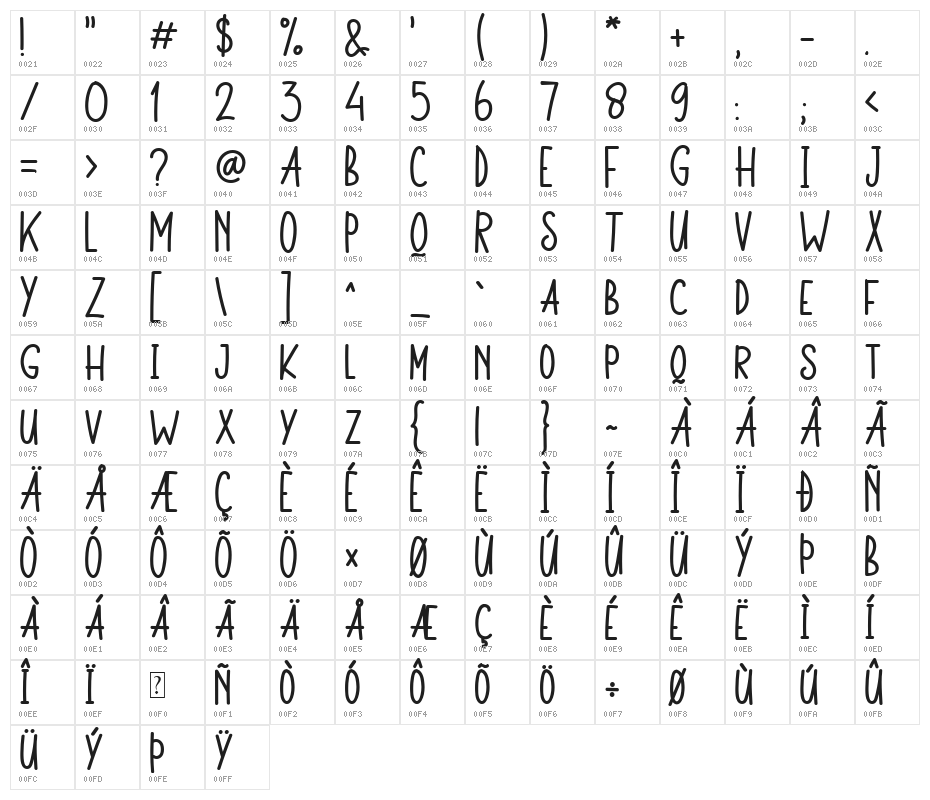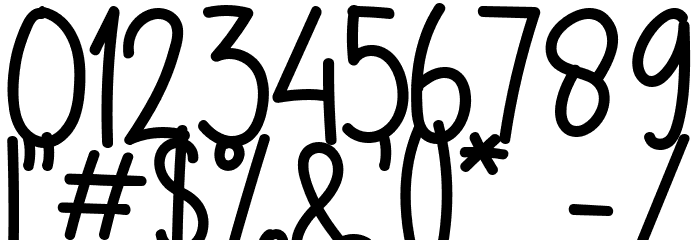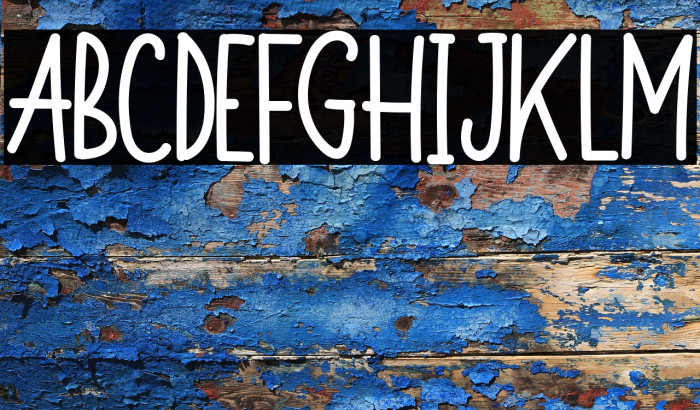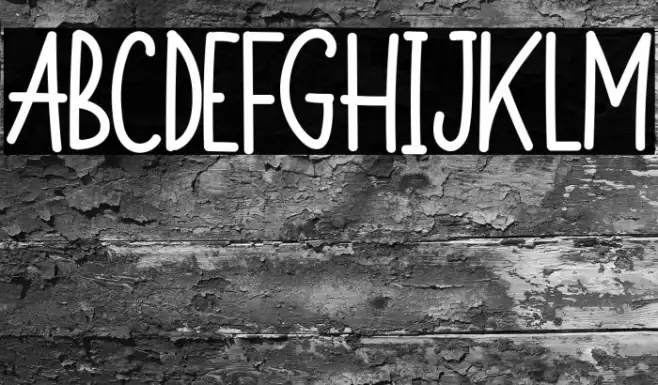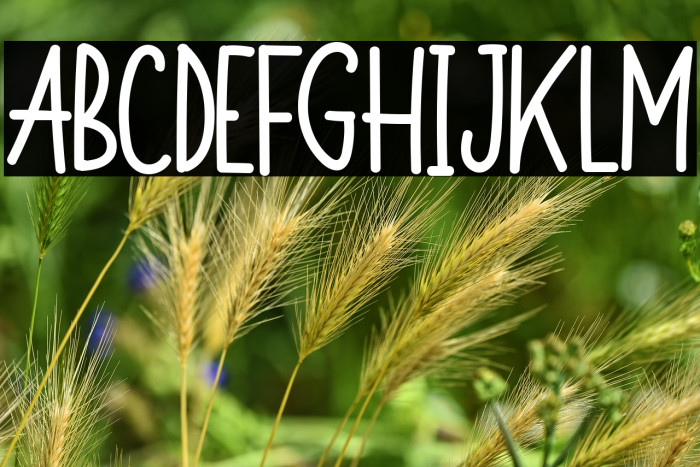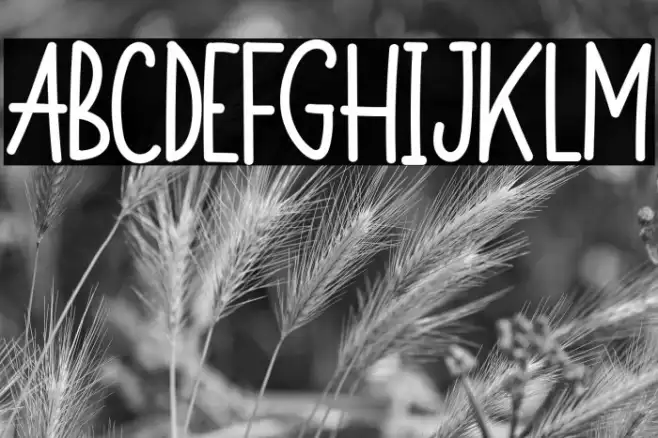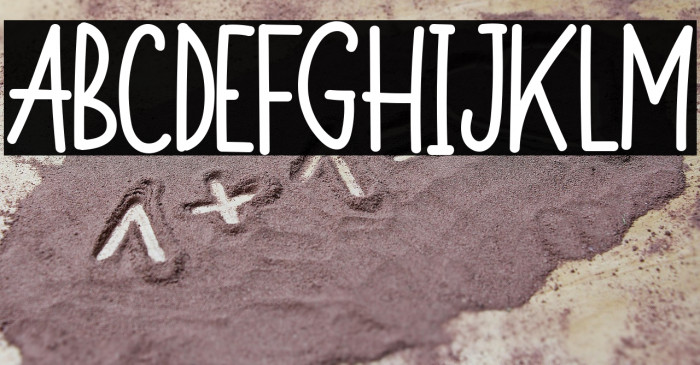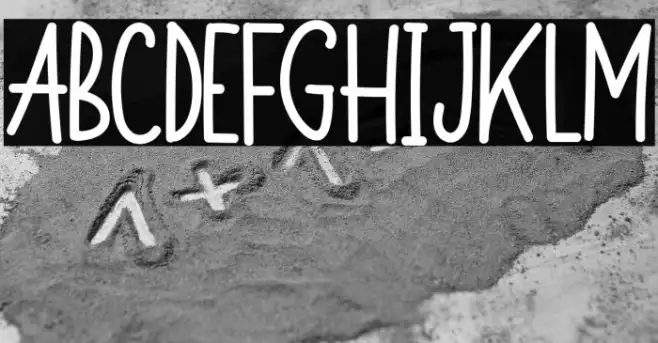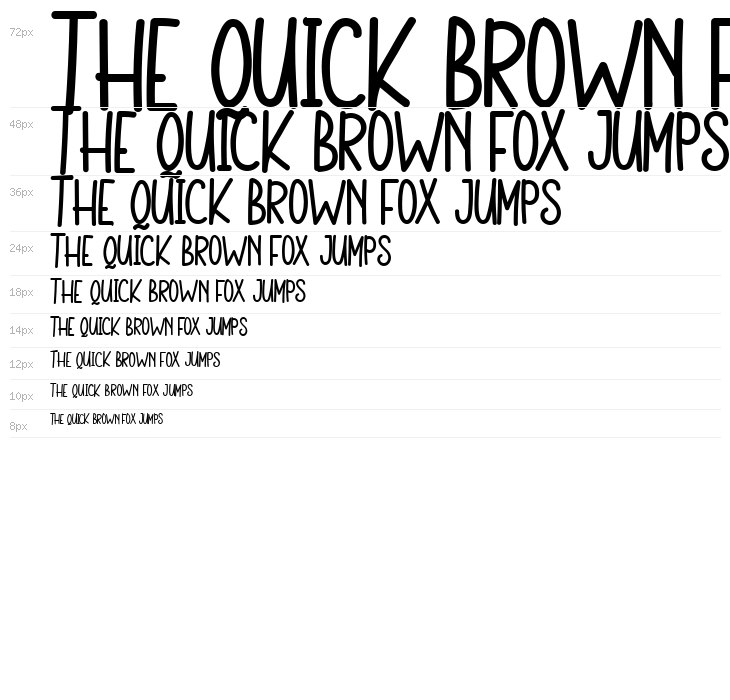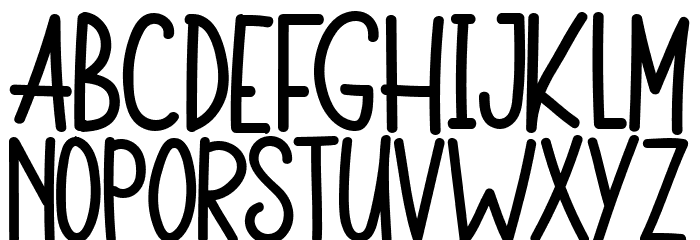
Monkey Funny Font
Monkey Funny Description
This playful and quirky font features tall, narrow letters with a hand-drawn appearance. The characters have a casual and informal style, with slightly irregular strokes that add to its charm. The uppercase and lowercase letters maintain a consistent height, creating a cohesive look. The numbers and special characters follow the same whimsical design, making it suitable for creative projects. The font's overall appearance is lively and energetic, perfect for adding a fun touch to any design.